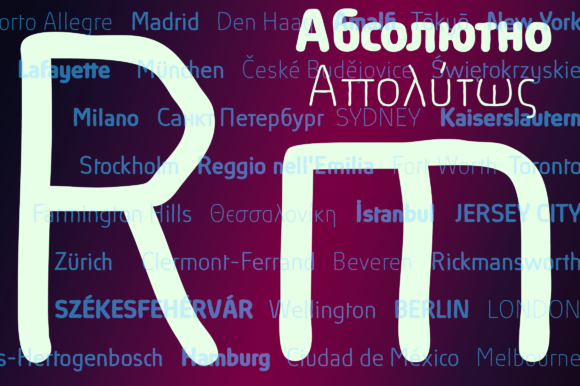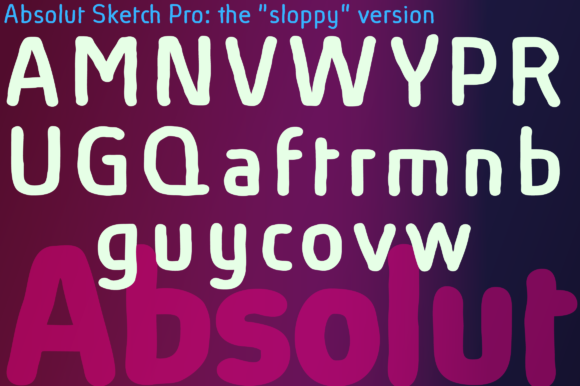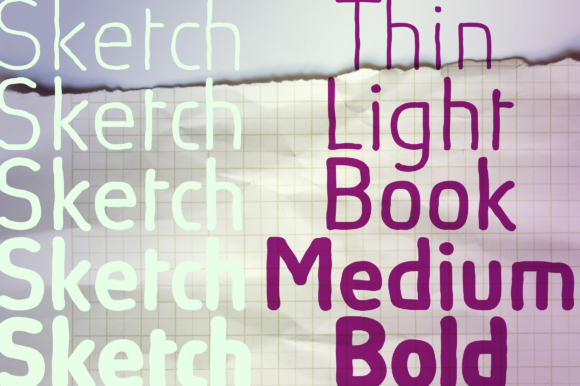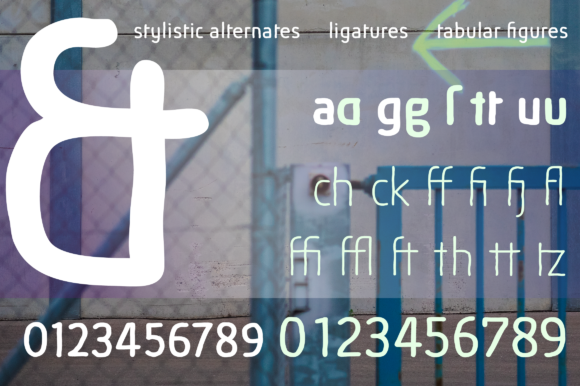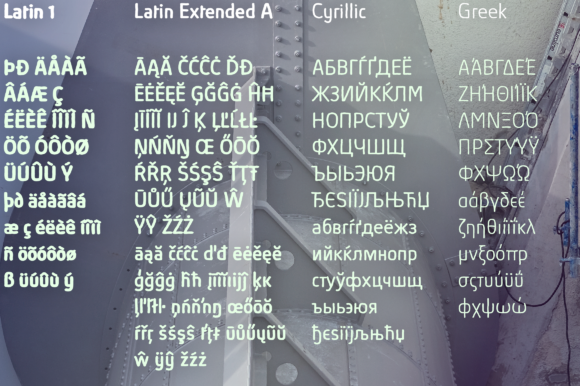
Absolut Pro Sketch Font
About Absolut Pro Sketch Font
The modern sans serif for the new Millenium, reduced to the essentials: Absolut is a modern sans serif without compromise. The forms of Absolut are unconditionally modern!